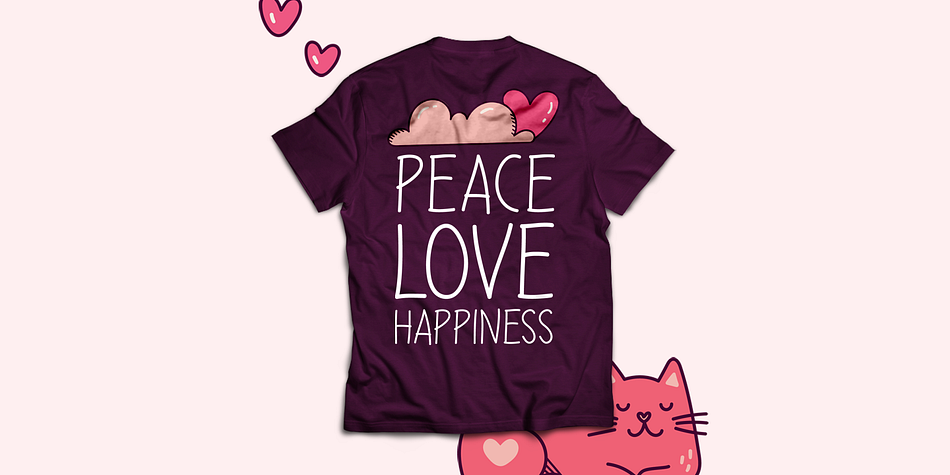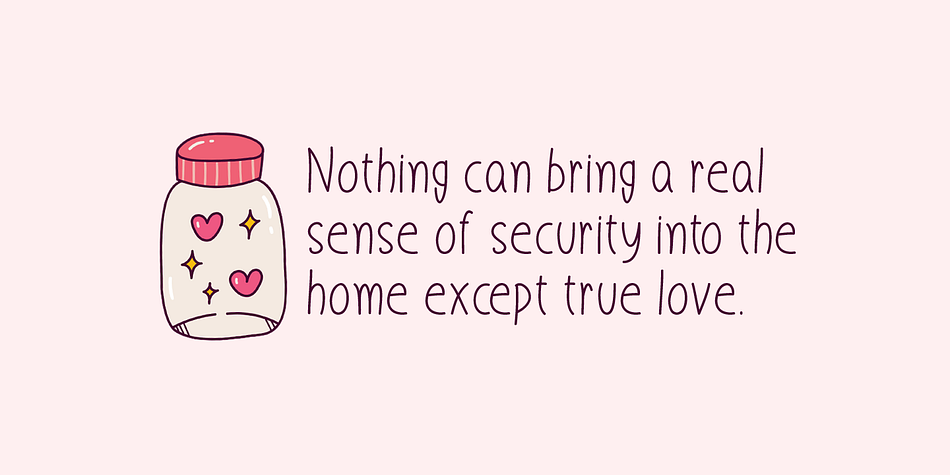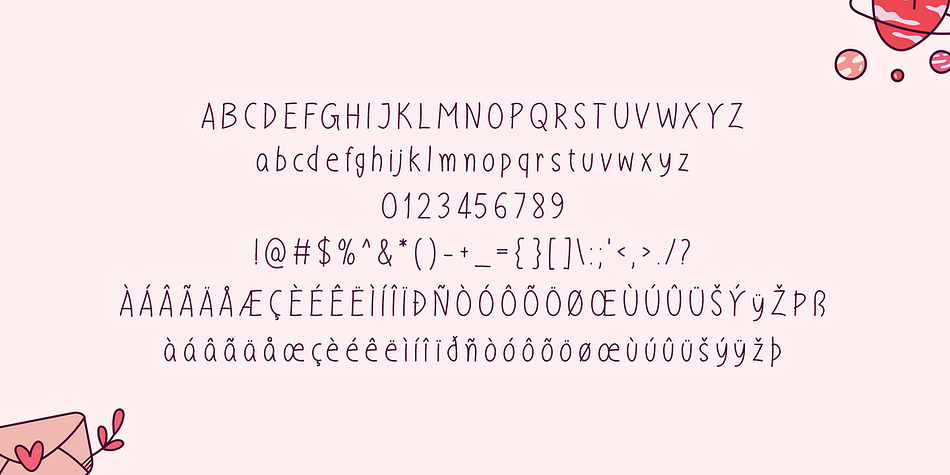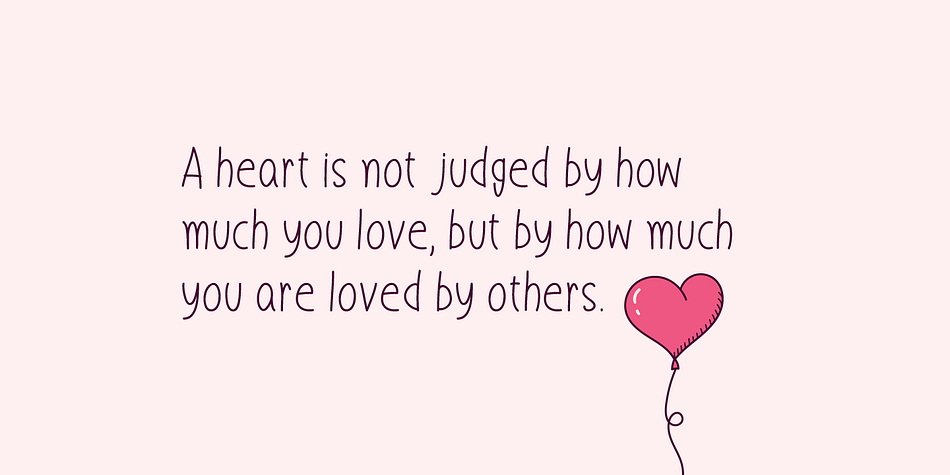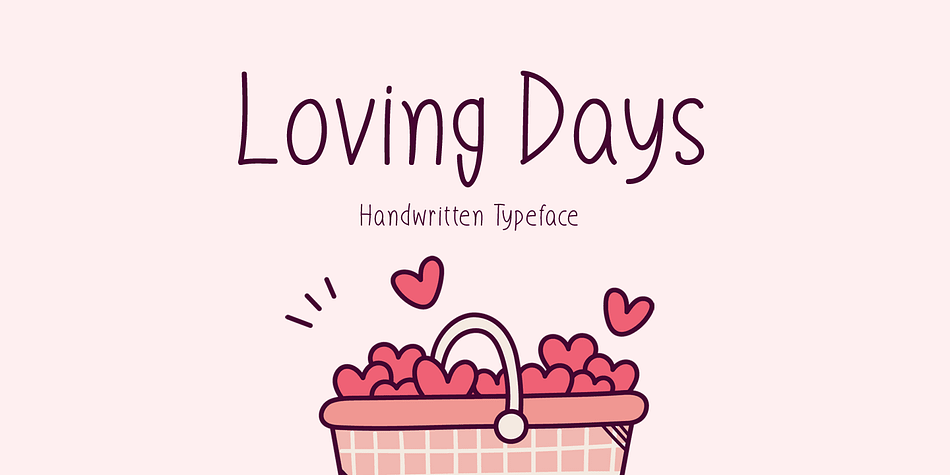
Loving Days
Designed by Md. Shohail Bhuiyan, Loving Days is a hand drawn font published by Seemly Fonts.
Loving Days is a brand new handwritten font perfectly suited for stationery, logos, t-shirts, print design, website headers, photo frames, flyers, music album covers, posters, image sliders, and much more. Add this font to your favorite creative ideas, and notice how it makes them come alive!
Foundry Seemly Fonts
Designer Md. Shohail Bhuiyan